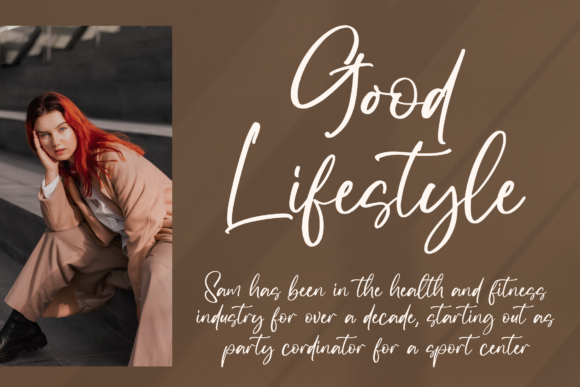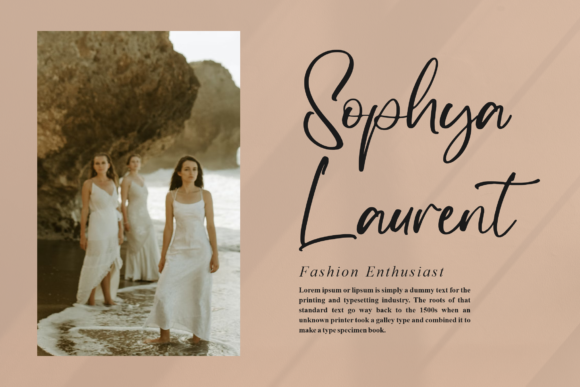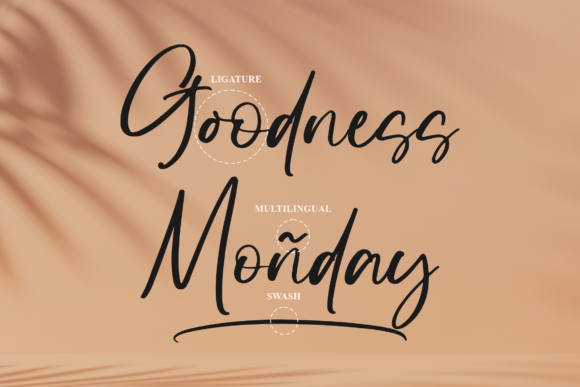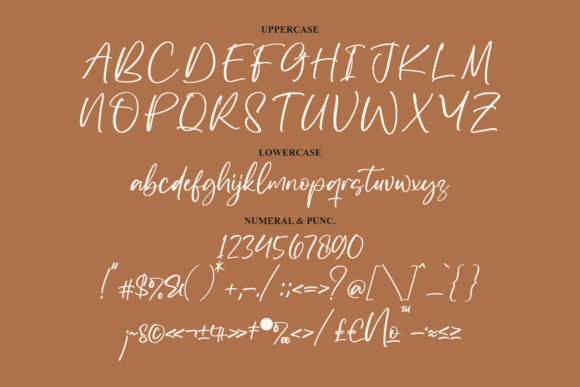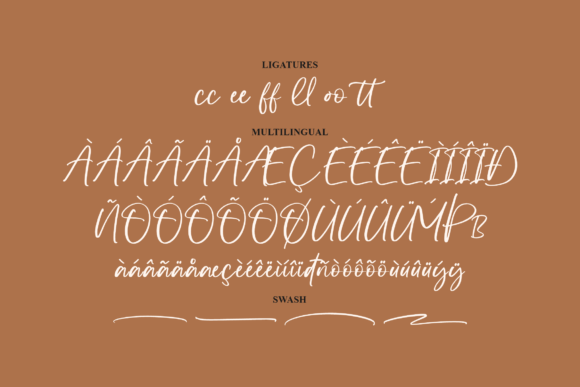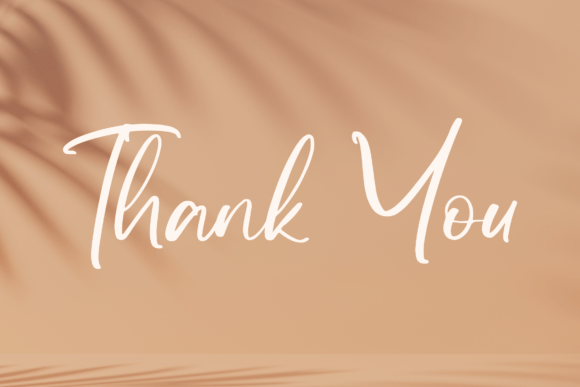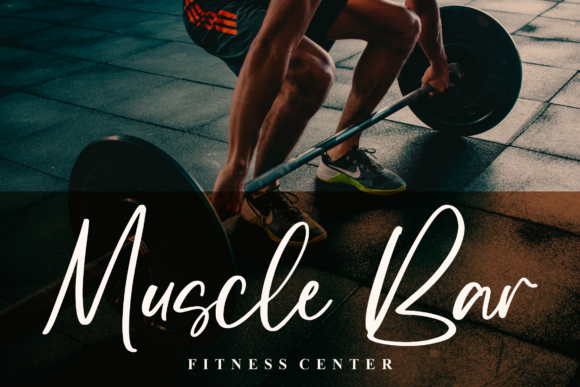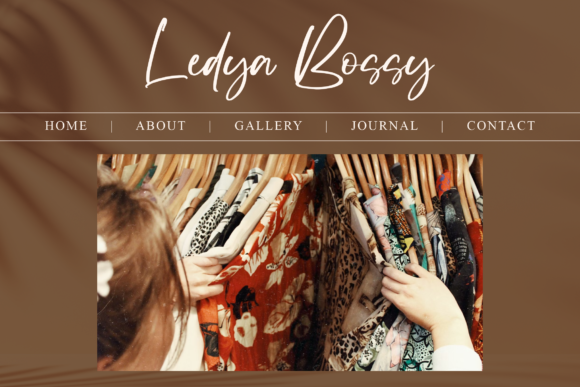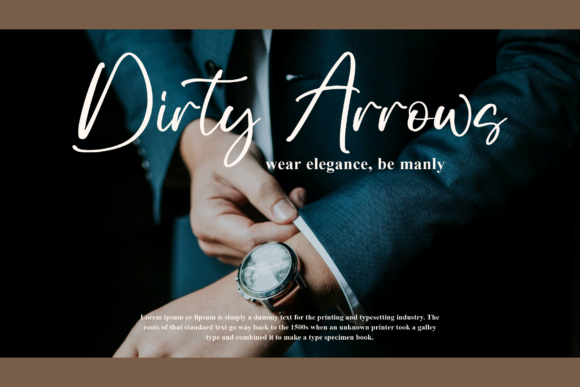
Zevallya Font
Introducing Zevallya – a Beautiful Script Font crafted with finesse by Perspectype Studio. This elegant typeface is the epitome of beauty and sophistication, making it an ideal choice for a myriad of projects. From logos and branding initiatives to homeware designs, product packaging, mugs, quotes, posters, shopping bags, t-shirts, book covers, name cards, invitation cards, greeting cards, labels, photography watermarks, and special events, Zevallya is a versatile font that adds a touch of exquisite script to your creative endeavors.
Zevallya’s graceful curves and fluid strokes create a harmonious balance, ensuring that your text not only communicates effectively but also exudes an undeniable sense of beauty. The script is meticulously designed to capture the essence of elegance, making it a perfect fit for projects that demand a refined and polished aesthetic.
Whether you’re aiming to establish a sophisticated brand identity or infuse a sense of grace into your merchandise, Zevallya rises to the occasion. Its adaptability extends across various mediums, offering a seamless transition from digital to print platforms.
Perspectype Studio has not only created a font but a creative tool that allows you to effortlessly incorporate a beautiful script taste into your designs. Immerse yourself in the world of Zevallya and envision the possibilities it opens up for your projects. Elevate your creative vision with the timeless beauty and versatility of Zevallya – where every stroke tells a story of elegance and charm.